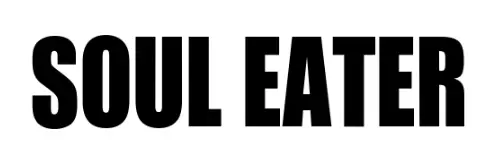
The “Soul Eater” font is prominently associated with the English title of the Japanese manga and anime series “Soul Eater.” This series revolves around students at the Death Weapon Meister Academy who collect souls to create “Death Scythes.” The font used in the English title closely resembles Impact Bold Condensed, a sans-serif typeface created by Geoffrey Lee in 1965 and later included in Microsoft’s core fonts for the web.
Similar Fonts:
Based on the provided findings, here are fonts similar to Impact Bold Condensed:
Impact Std Bold Condensed by URW Type Foundry: A close replica of the font used in the “Soul Eater” logo.
Heading Now 48 Heavy by Zetafonts: Offers a similar aesthetic suitable for bold headings.
Akkordeon Ten by Emtype Foundry: Provides a comparable vibe with its condensed and bold design.
PF Fusion Sans Pro Black by Parachute: Another alternative with a similar bold and condensed style.